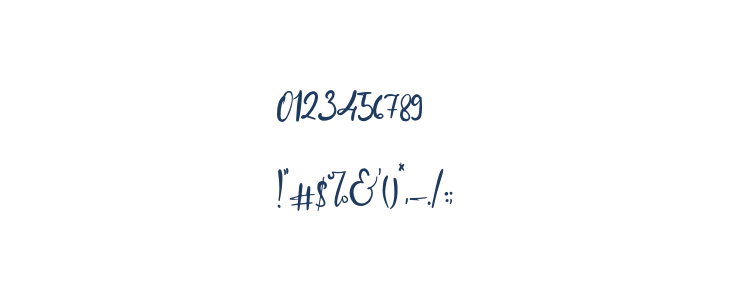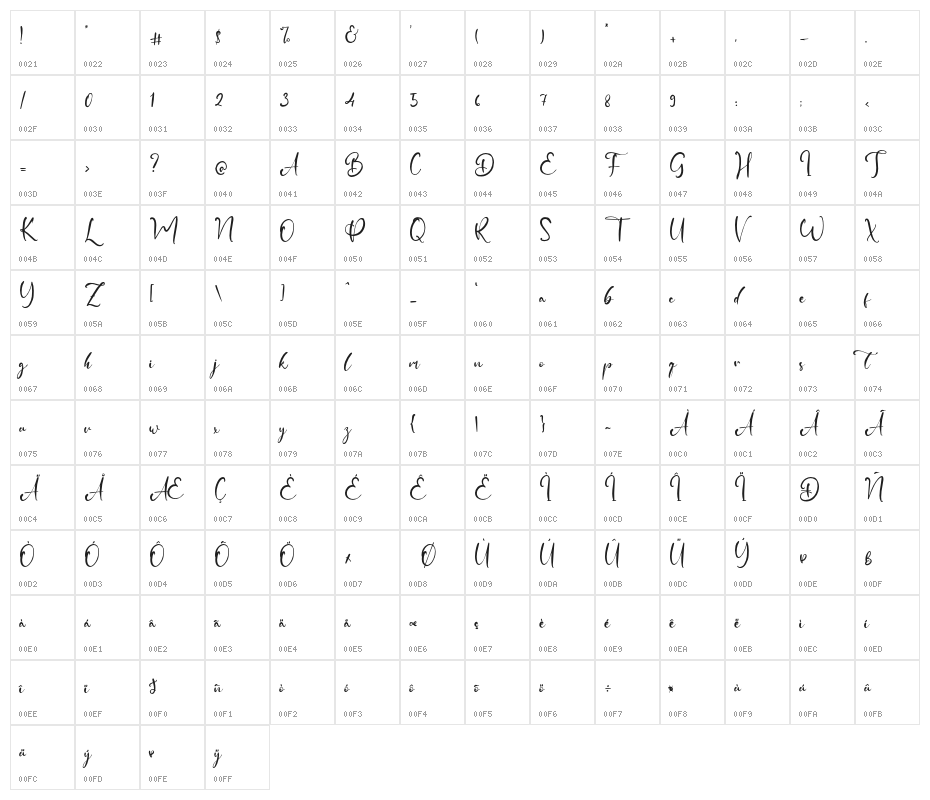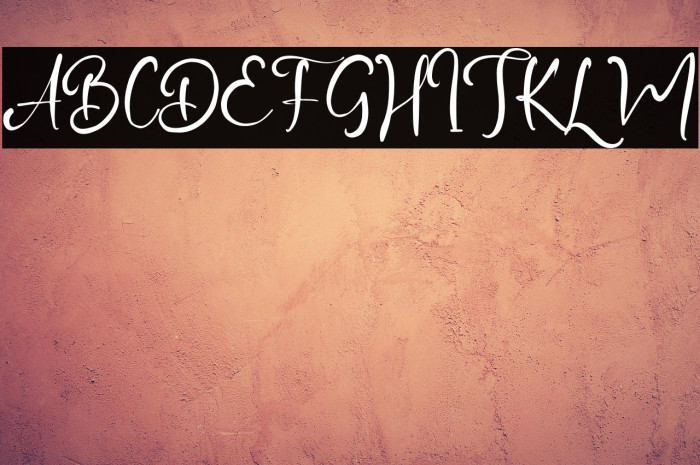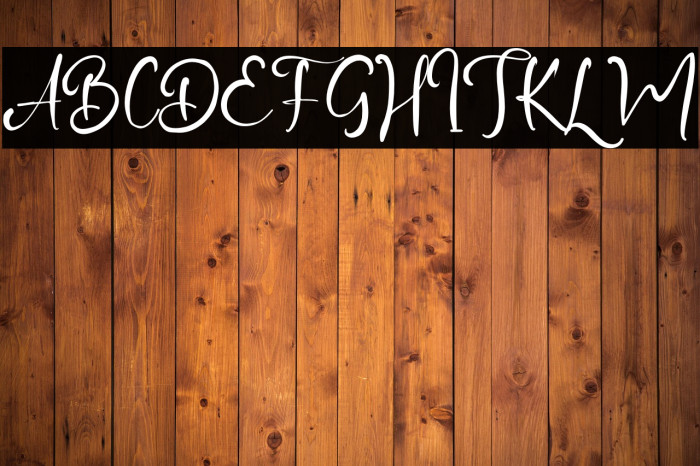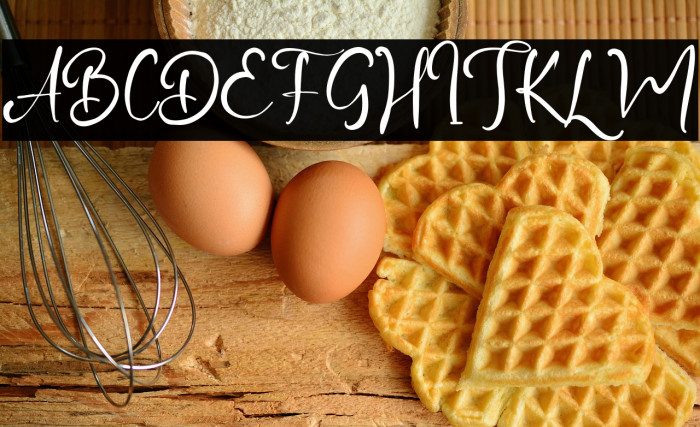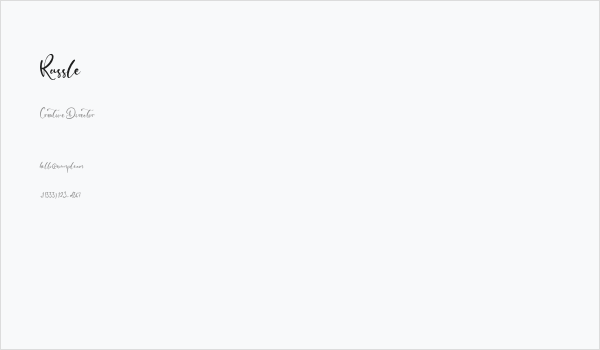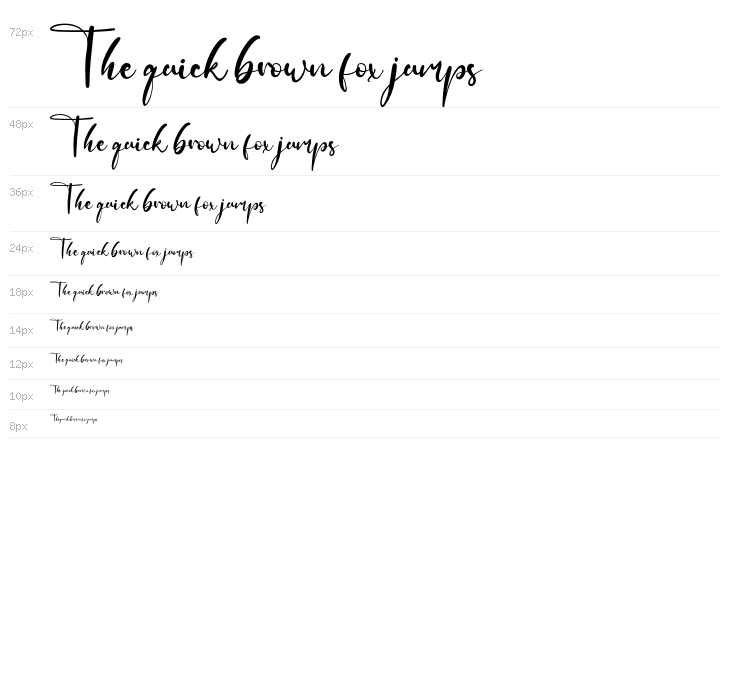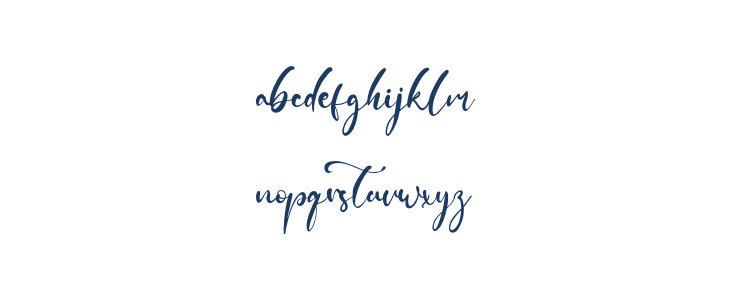
Russle Font
Russle Description
This elegant script font features a flowing, cursive style with a modern touch. The uppercase letters are bold and sweeping, with graceful loops and curves that give them a sense of movement and fluidity. The lowercase letters maintain a consistent style, with delicate connections between each character, enhancing the overall cohesiveness. The numerals are distinct and easy to read, while the special characters blend seamlessly into the font's aesthetic. This font's high contrast in stroke thickness adds to its dynamic appearance, making it suitable for a variety of creative applications.
| Use Case | Logos, Invitations, Decorative text |
| Proposed Projects | Ideal for wedding invitations, branding, greeting cards, and elegant packaging designs. |